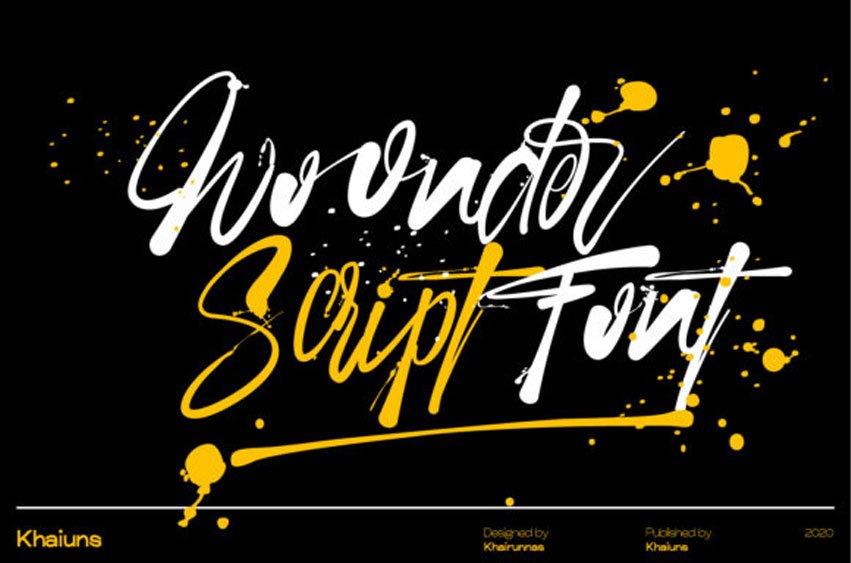
Woonder Font is a beautiful and stylish handwritten font. This font is PUA encoded which means you can access all of the glyphs and swashes with ease!